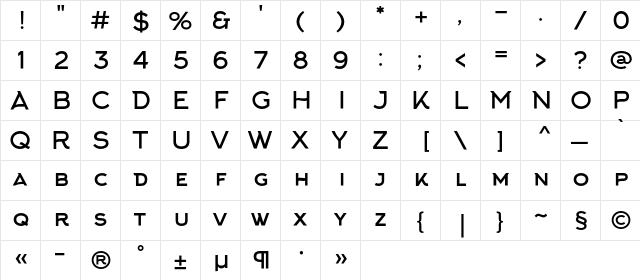
Arkhip Regular
| Foundry | Igor Kuznetsov for Studio Design Klimov |
| Designer | Igor Kuznetsov for Studio Design Klimov |
Design Context for Arkhip Typeface
Arkhip takes a measured approach to typography — its balanced proportions and neutral character make it a reliable workhorse for both digital and print work.